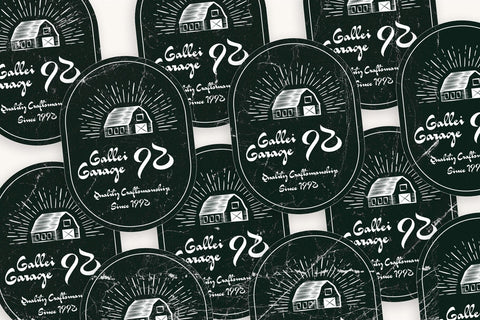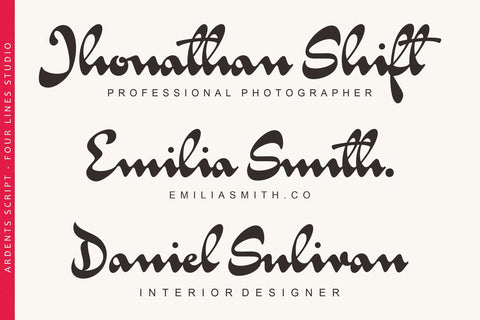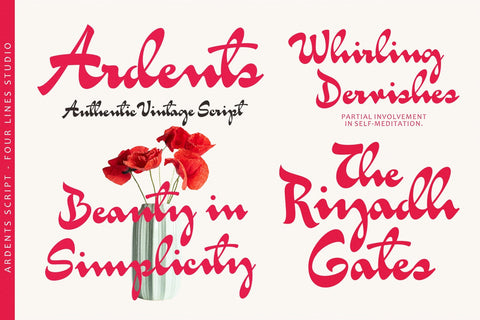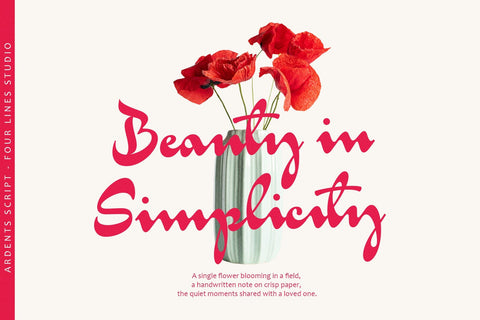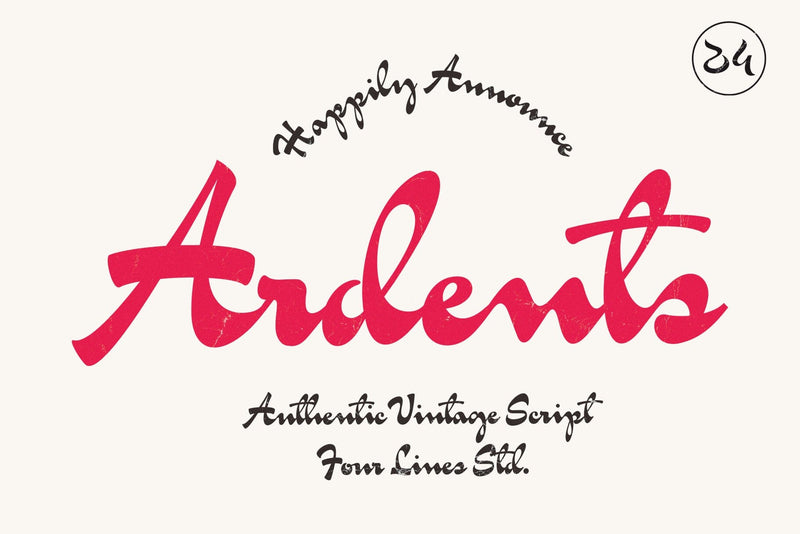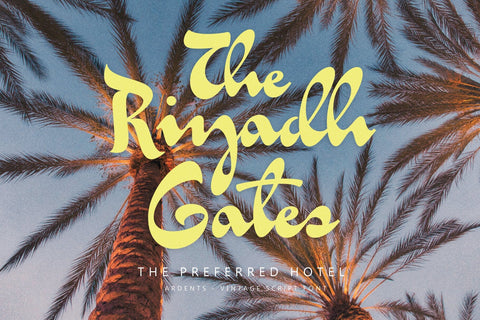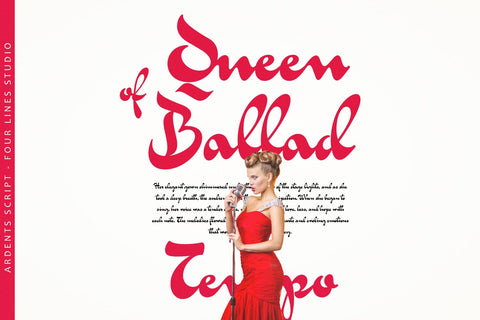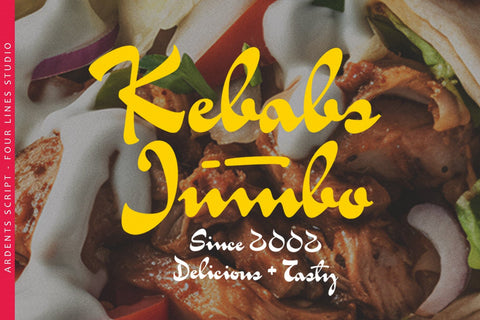
Ardents – Vintage Font Script
"Ardents" is a script font with Vintage nuances, characterized by thick, flowing, traditional, and authentic lettering.
This Ardents font is suitable for various design projects including posters, logos, quotes, headings, printed materials, merchandise, and social media content. Explore the font preview for more insights on leveraging this versatile typeface.